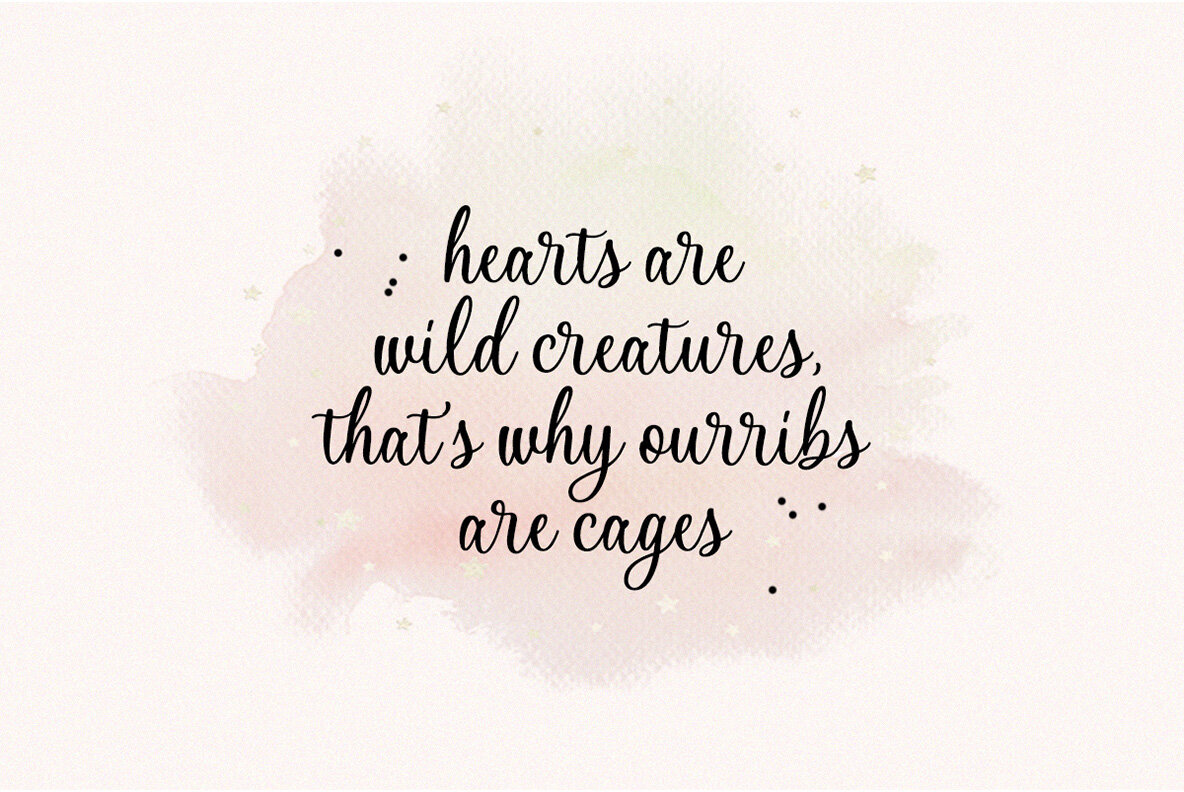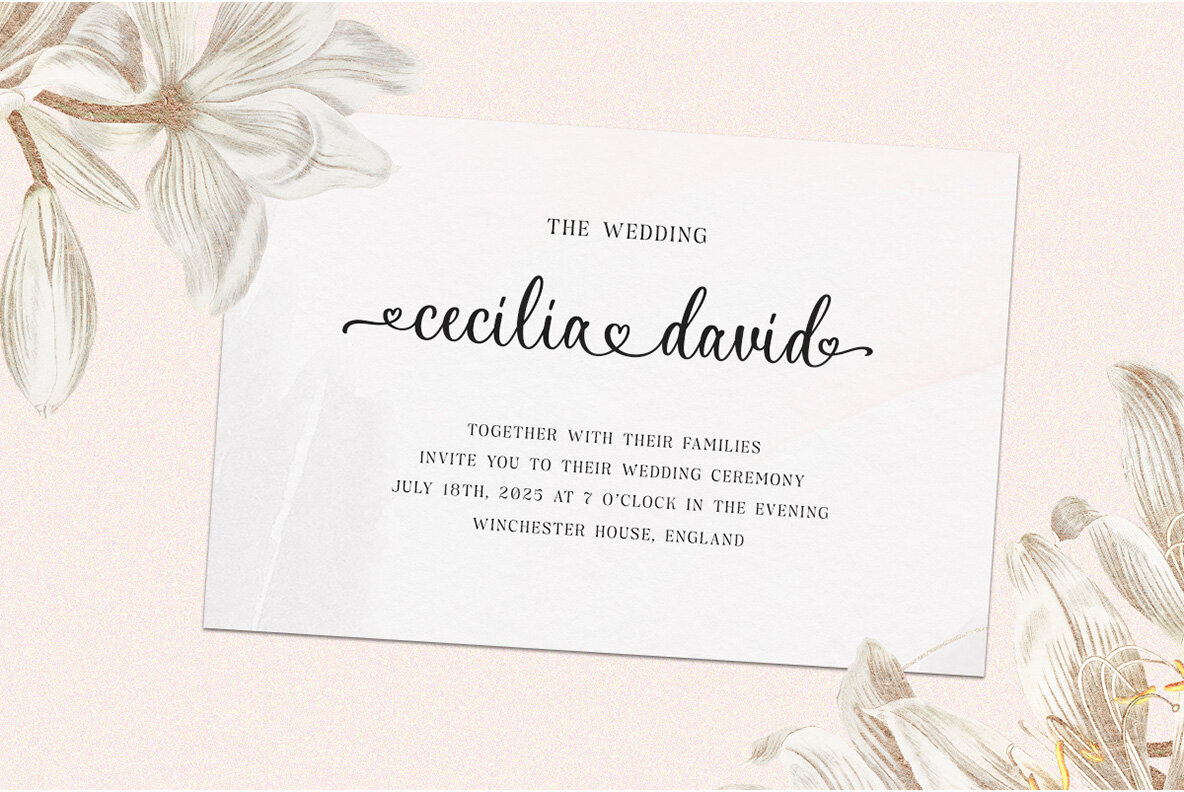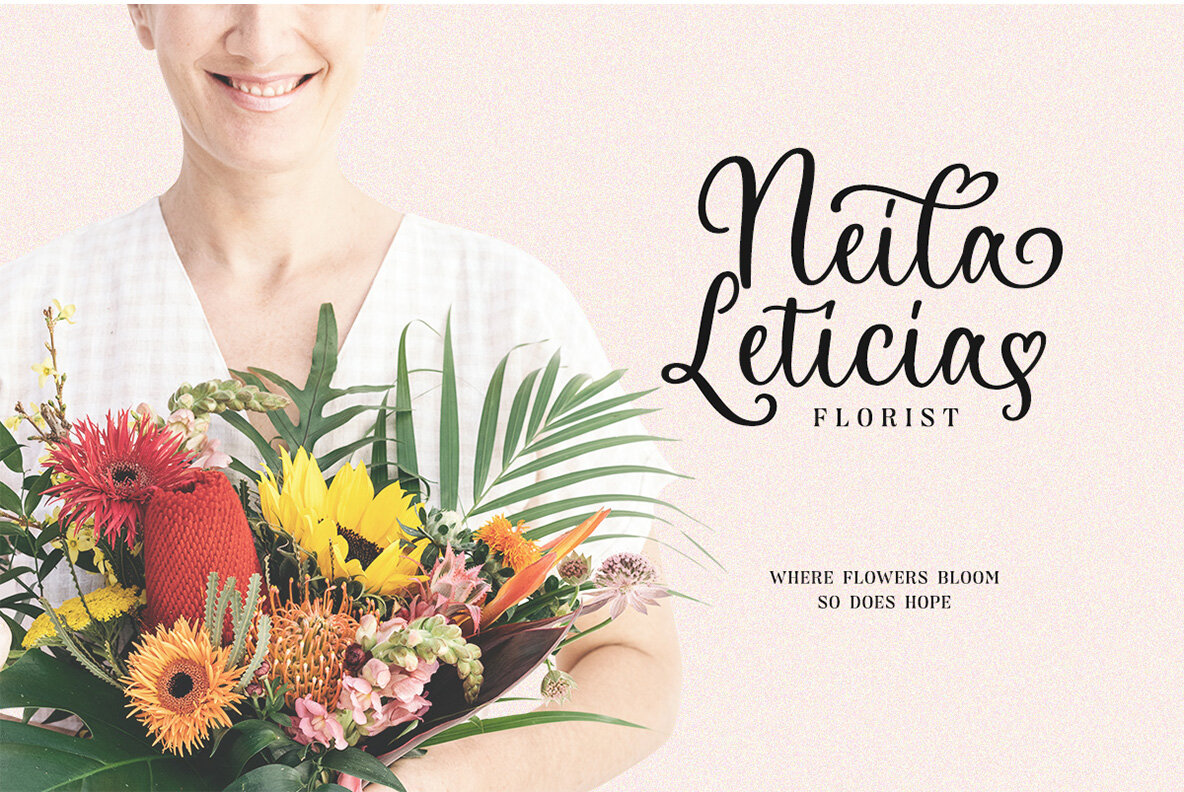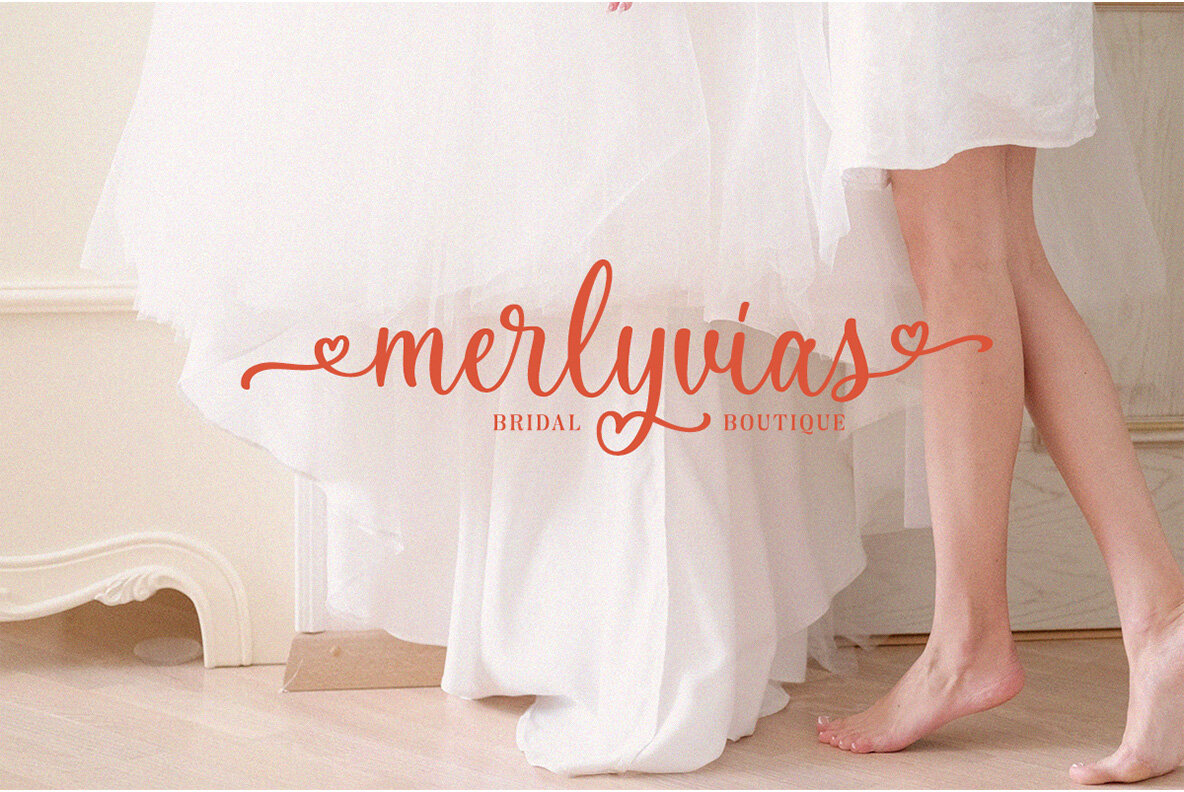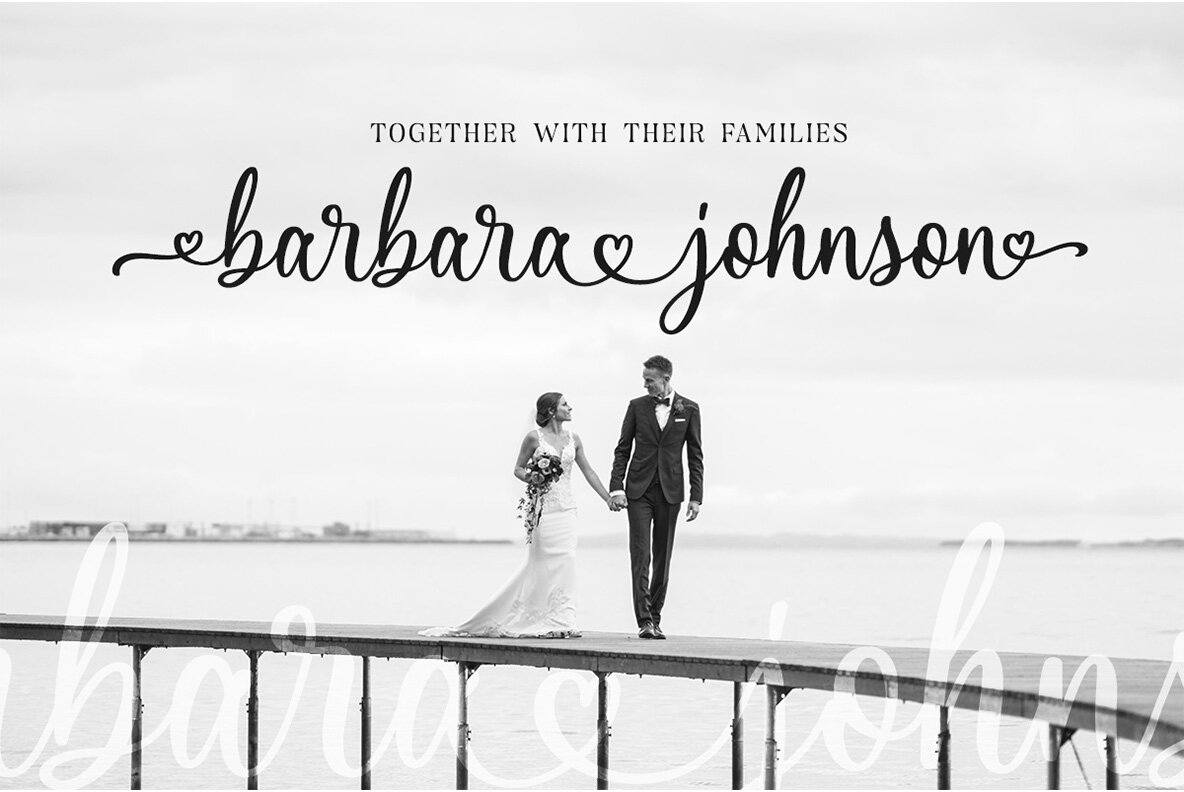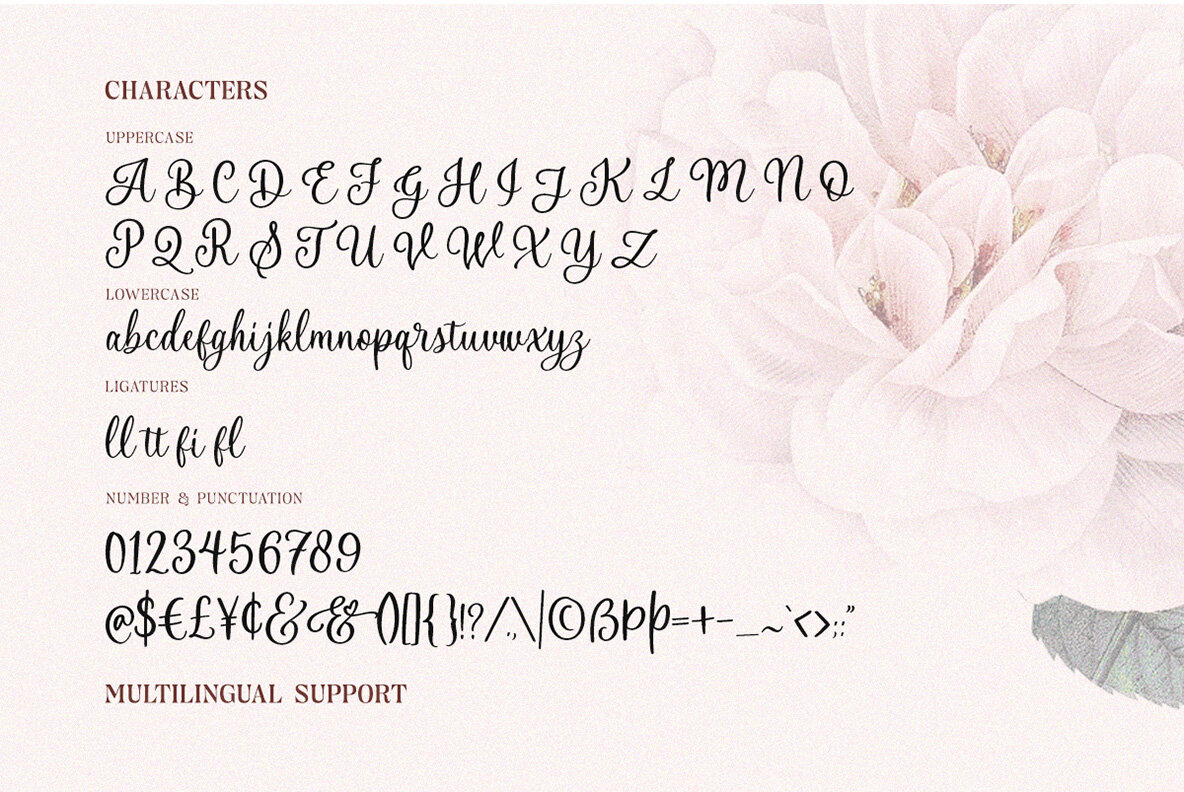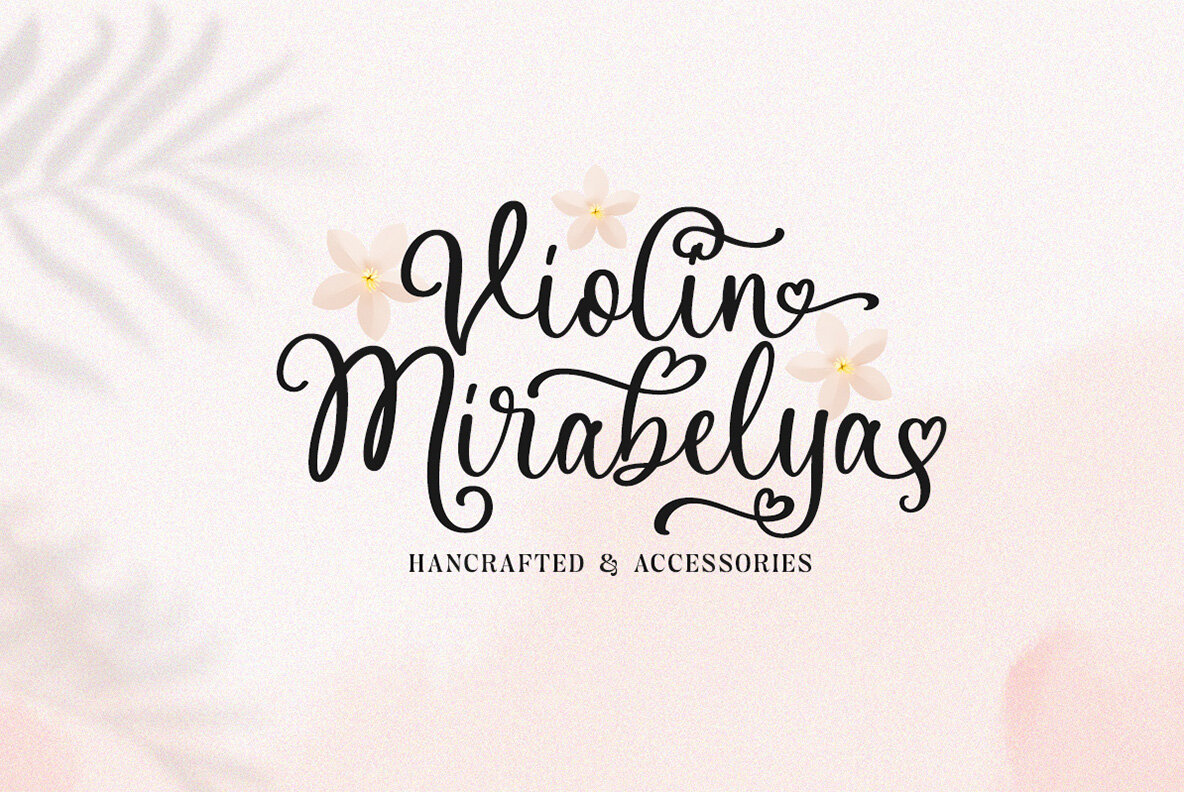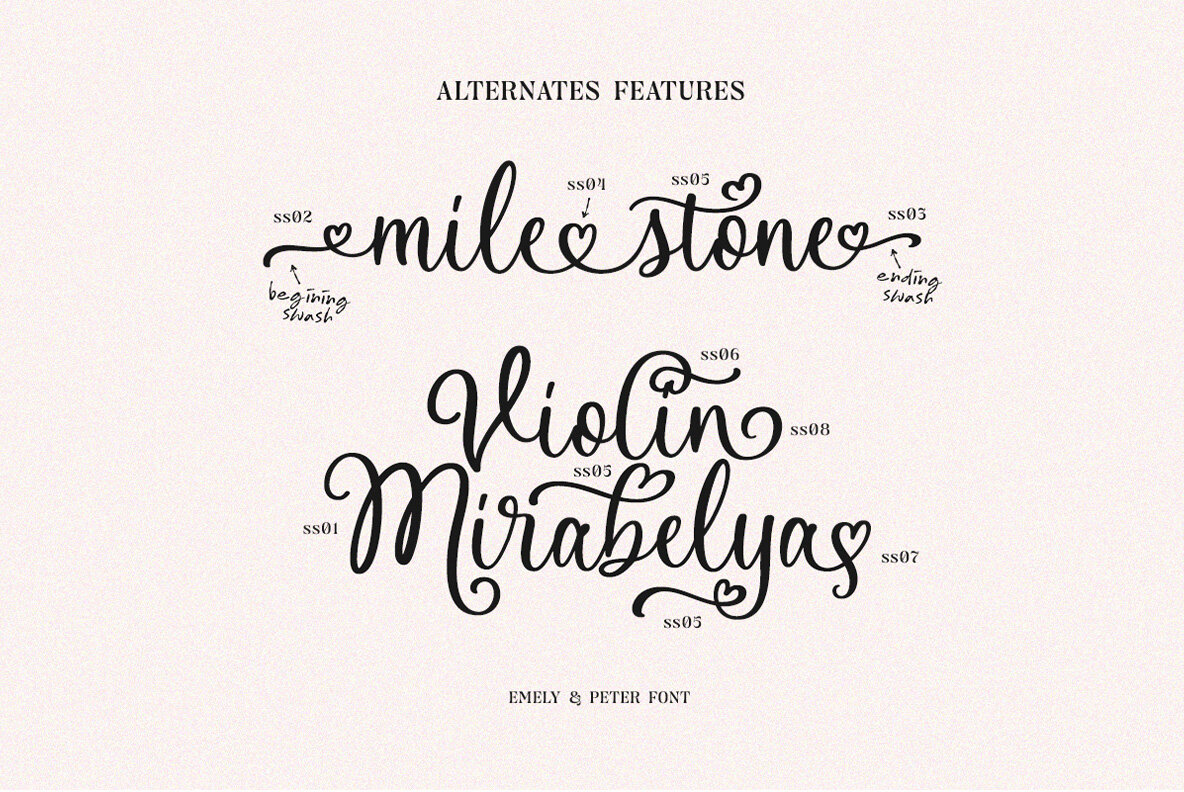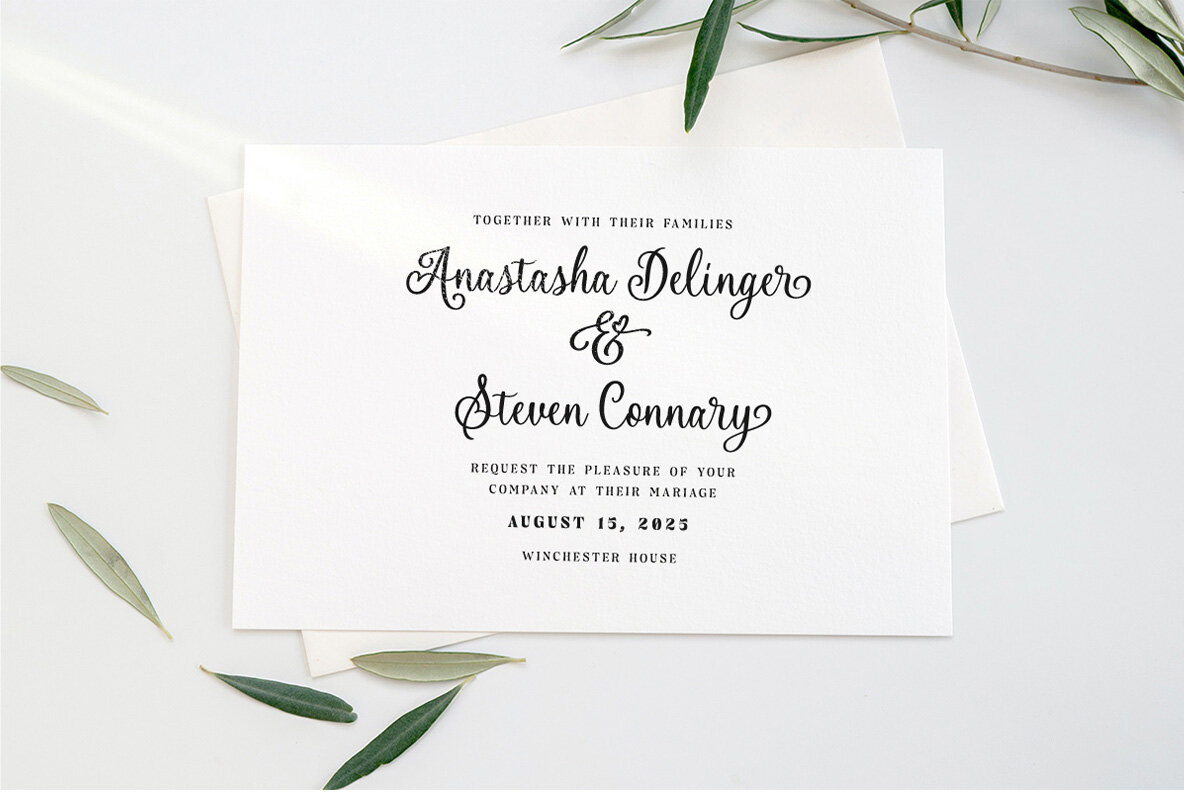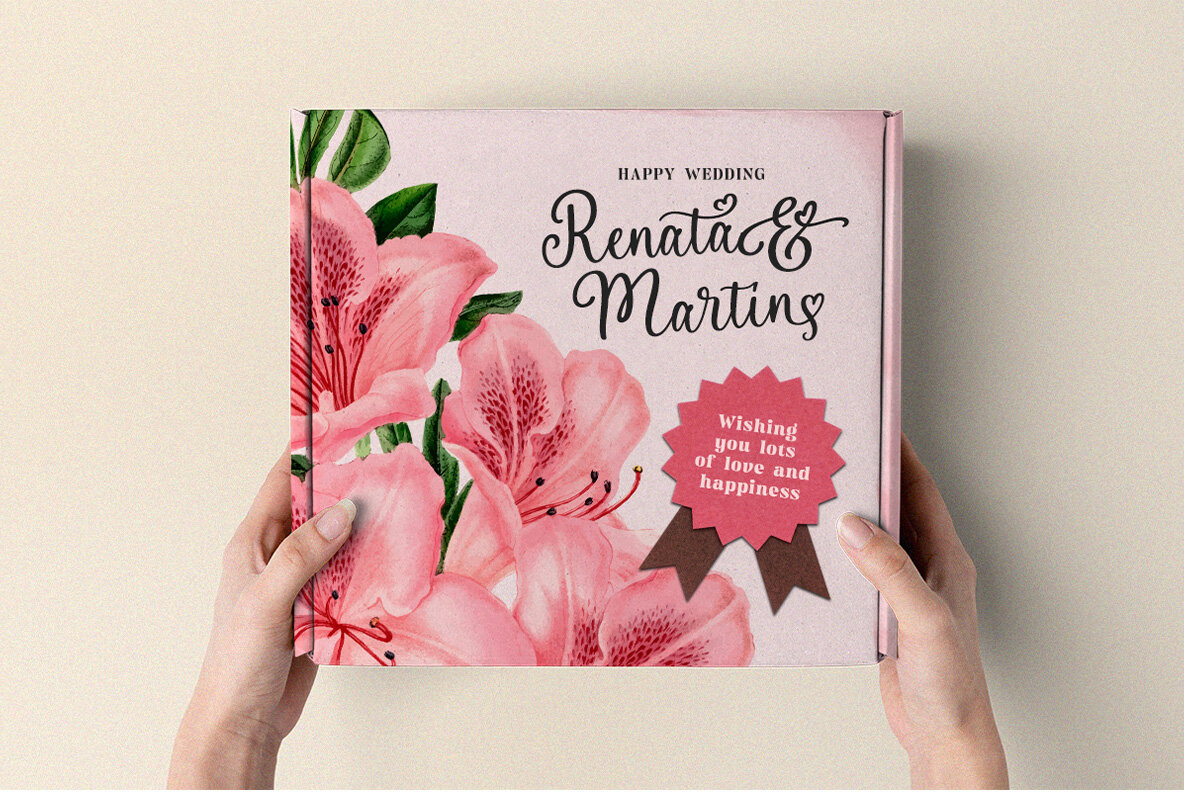
Emely and Peter Font
Emely and Peter Regular
Emely and Peter captures the essence of romance through its elegant modern calligraphy. Designed with love-inspired swashes and ornaments, this font is an ideal choice for themes centered around weddings, femininity, and passion. It shines in applications requiring a personal touch, such as invitations, greeting cards, and book covers. Its graceful lines also lend sophistication to packaging, logo design, and advertising material. For optimal use, incorporate Emely and Peter in software that supports OpenType features, such as Adobe programs or Corel Draw, to fully explore its extensive glyph variations. More details on utilizing OpenType features can be found at: ....Emely and Peter: Romantic Calligraphy Script